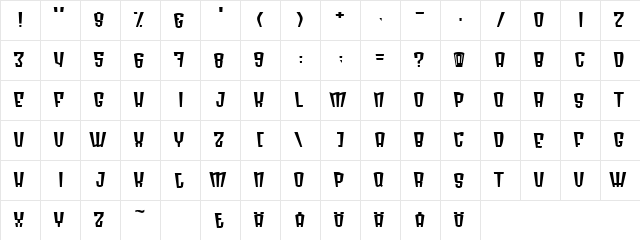
Radonator Monster Normal
Design Context for Radonator Monster Typeface
Radonator Monster is a composed and adaptable typeface that performs quietly and consistently across a wide range of design contexts.